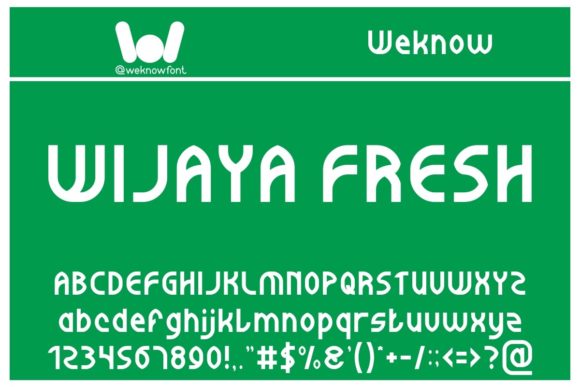
Prepare to be mesmerized by the captivating charm of Wijaya Fresh, an extraordinary display font that will ignite your creative spirit. With its playful and effortlessly cool demeanor, this font is meticulously crafted to infuse your designs with an irresistible blend of style and substance.
Unleash the versatility of Wijaya Fresh and adorn your digital magazine with an arresting headline font that commands attention and leaves a lasting impression. Its meticulously designed characters seamlessly intertwine modernity with a touch of nostalgia, making it the perfect choice for captivating titles, eye-catching posters, and unforgettable brand identities.
Step into a world of boundless creative possibilities with Wijaya Fresh. Its adaptability extends effortlessly across a myriad of mediums, from the vibrant world of apparel to the dynamic realm of gaming. Whether you're crafting a bold logo that embodies your brand's essence or designing a captivating movie poster that promises an unforgettable cinematic experience, this font has the versatility to elevate your vision to new heights.
Embrace the allure of Wijaya Fresh and let your imagination soar. Its meticulously crafted characters dance gracefully across the page, inviting you to create designs that resonate with your audience on a deeply emotional level. From the playful pages of comic books to the captivating covers of novels, this font possesses the power to transform your creative endeavors into captivating masterpieces.
Indulge in the visual symphony of Wijaya Fresh, a font that seamlessly blends the allure of modern aesthetics with the timeless appeal of classic design. Its carefully balanced strokes and graceful curves create a harmonious ensemble that will captivate your audience, leaving them yearning for more.
With Wijaya Fresh at your fingertips, the boundaries of creativity dissolve, and a world of endless possibilities unfolds. Its versatility knows no bounds, making it the perfect companion for designers seeking to make an indelible mark.